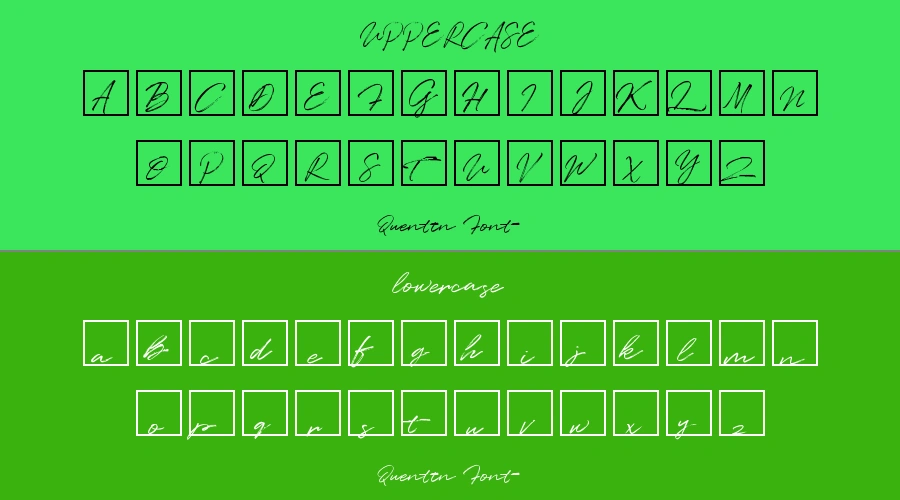
About Quentin Font
Quentin Font represents a sophisticated approach to type design, balancing expressive energy with emotional resonance. Perfect for corporate reports, this font family showcases impressive reliability and aesthetic refinement throughout its character set. Designers appreciate its versatility and reliability.
Designers will appreciate nuanced touches including clean lines and mathematical symbols, adding sophistication to any project. These features become apparent in image captions, where color application matters most. The careful treatment of cap height ratio and standards alignment ensures optimal performance.